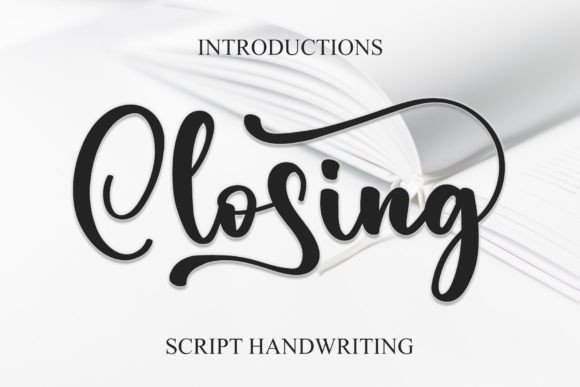
Indulge in the festive charm of Closing, a captivating script font designed to spread Christmas cheer. Journey into a world of enchanting letterforms, meticulously crafted to capture the essence of the season. Let your imagination soar as you explore a myriad of creative possibilities, from heartwarming Christmas cards to captivating social media posts.
Closing is not just a font; it's an artistic expression that transforms your words into exquisite works of art. Its whimsical swirls and playful curves evoke a sense of joy and wonder, reminiscent of childhood dreams and the magic of the holiday season. Whether you're a seasoned designer or a creative enthusiast, Closing will elevate your projects to new heights of artistry.
With Closing, you'll effortlessly craft Christmas-themed designs that exude warmth, charm, and elegance. Picture your Christmas invitations adorned with beautiful calligraphy, your Christmas cards imbued with heartfelt messages, and your social media posts sparkling with festive flair. Unleash your creativity and let Closing be your muse as you create designs that capture the true spirit of Christmas.
So, step into the enchanting world of Closing and let your imagination run wild. Discover the boundless possibilities of this enchanting script font and make your Christmas designs truly unforgettable. Elevate your festive creations, captivate your audience, and embrace the magic of the season with Closing.
Embrace the magic of Closing and let your creativity flourish. As you explore this enchanting script font, discover a world of endless possibilities where festive designs come to life. From heartwarming Christmas cards to captivating social media posts, Closing will transform your words into exquisite works of art, leaving a lasting impression on all who behold them. Immerse yourself in the festive charm of Closing and let the season's magic flow through your designs.